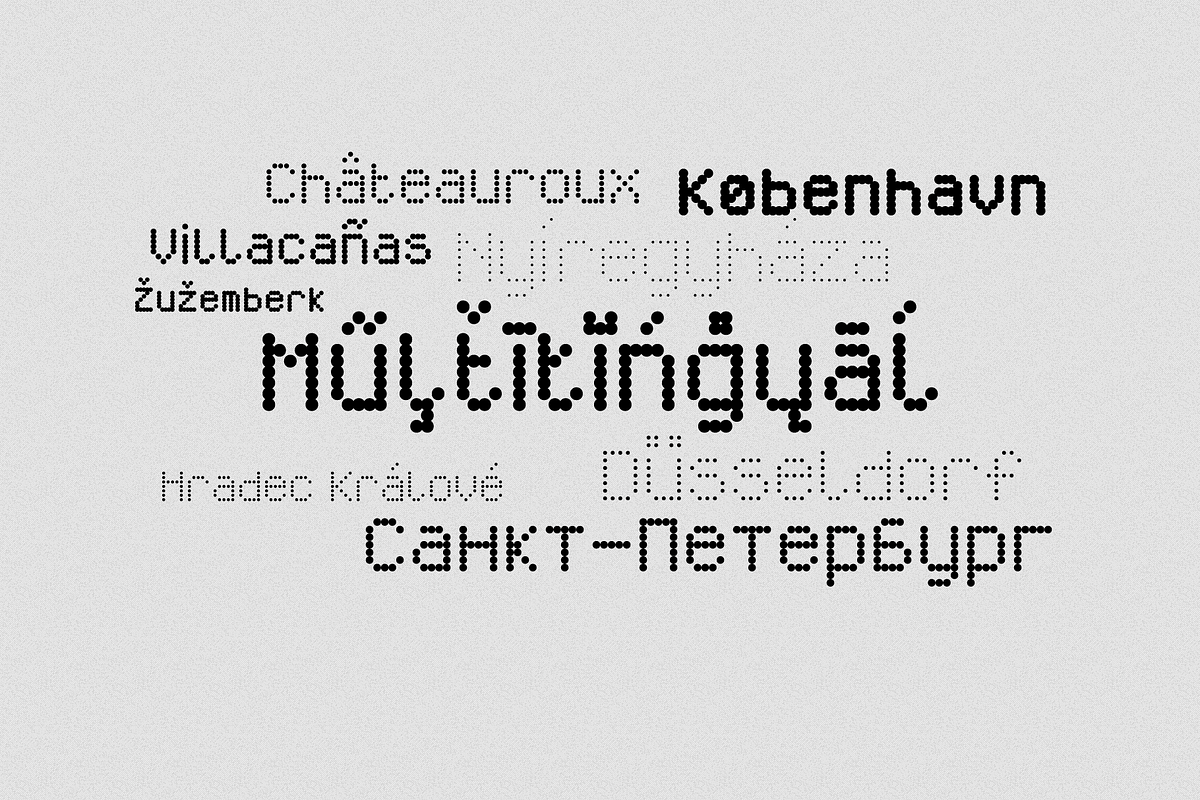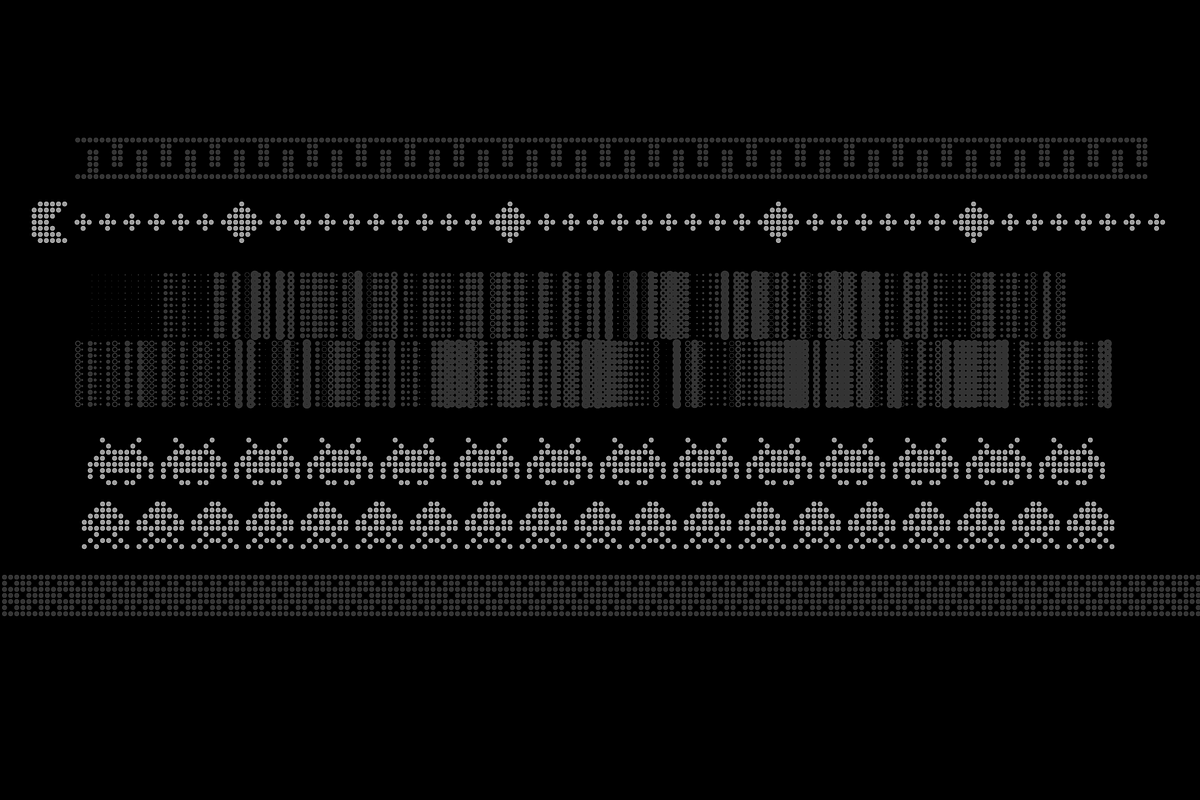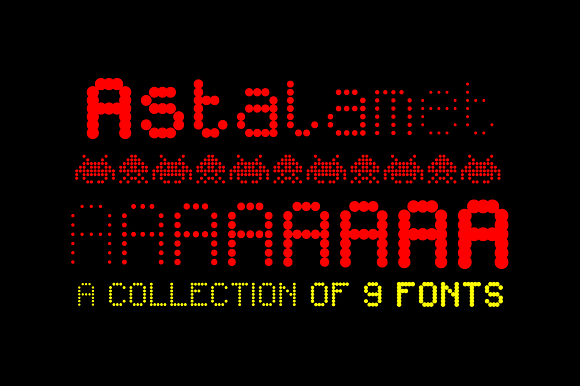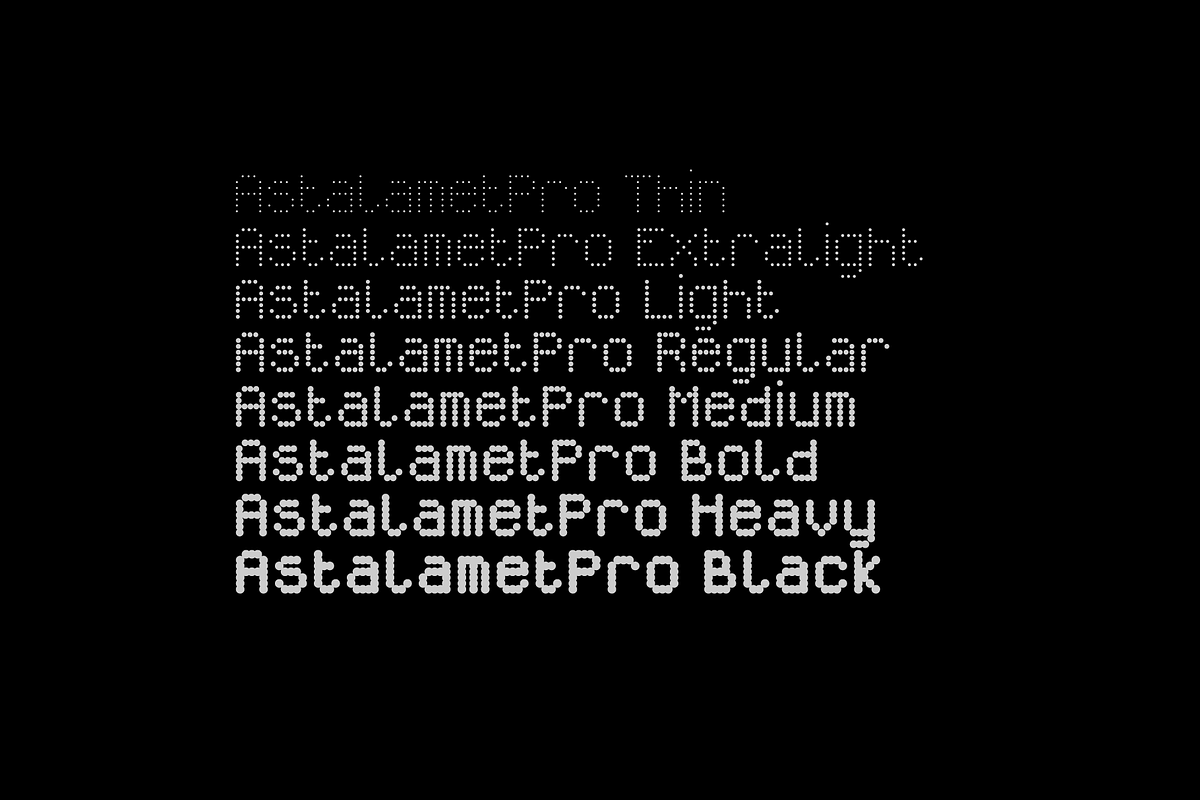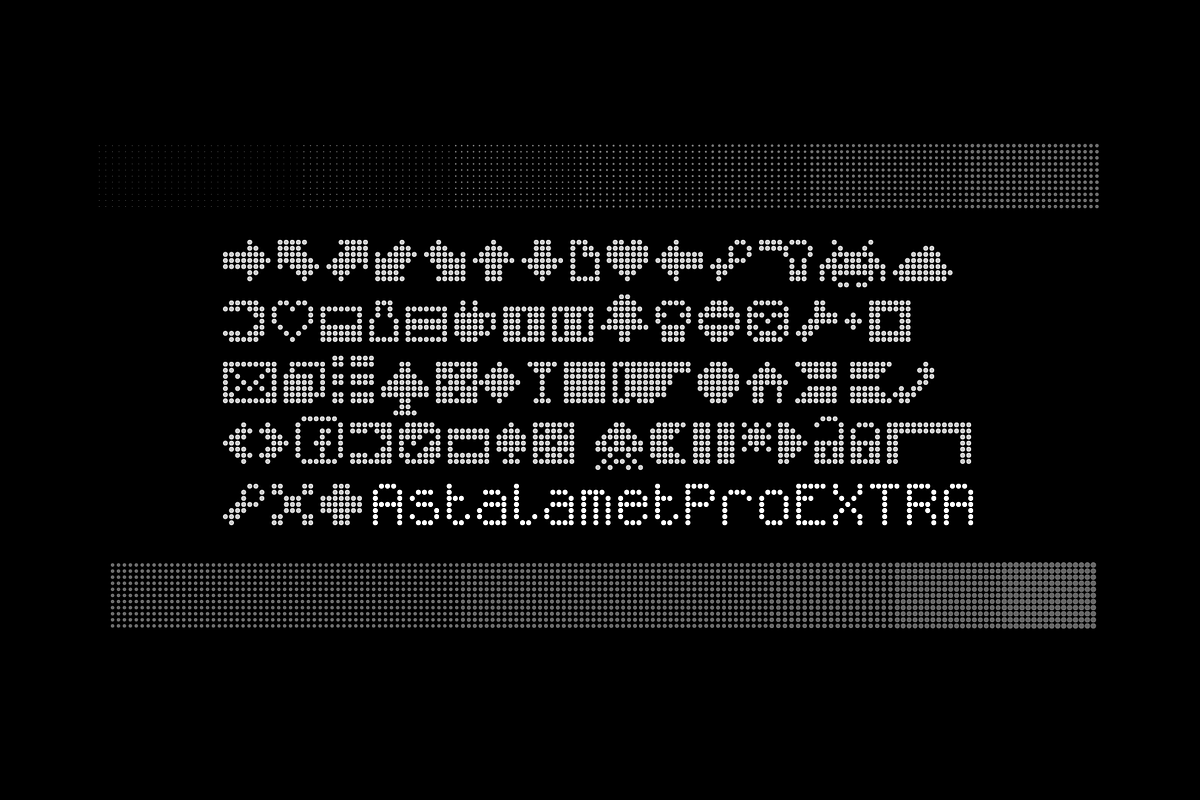
Astalamet Pro - 9 fonts
- Language support includes Western, Central and Eastern European character sets, as well as Baltic and Turkish languages.
Astalamet Pro - 9 fonts by Leitmotif fits naturally into Branding, posters, packaging, typography.